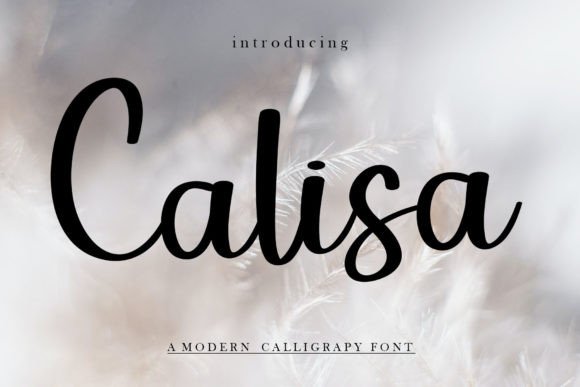
Take your business reports to the next level with Calisa, the script font that exudes professionalism and elegance. This charming font, crafted by the talented pinkmeca, captures the essence of handwritten notes, bringing a personal touch to your formal documents.
Calisa's graceful curves and playful flourishes add a touch of warmth and creativity to any business report. Its legible and easy-to-read style ensures that your message is communicated clearly and effectively, while its unique design sets your reports apart from the ordinary.
With Calisa, you can create business reports that not only inform but also captivate. Its versatility extends beyond business documents, making it an ideal choice for wedding invitations, greeting cards, logos, posters, and any other project that demands a touch of sophistication.
Imagine your business reports transformed into works of art, leaving a lasting impression on your audience. Calisa's ability to elevate your reports with a sense of style and professionalism is unmatched. Its timeless beauty ensures that your documents will remain relevant and impressive, regardless of the occasion.
Say goodbye to dull and monotonous business reports, and embrace the captivating charm of Calisa. Let your words dance across the page with a font that speaks volumes about your attention to detail and commitment to excellence. Invest in Calisa today and unlock a world of possibilities for your business communication.